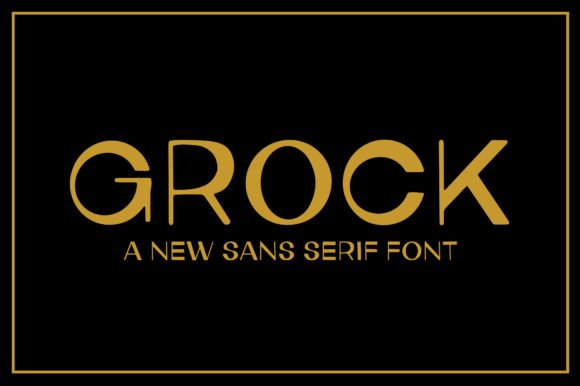
Introducing the Perfect Canvas for Your Creativity: Grock Font
Do you remember that moment when a spark of creativity strikes, and you know exactly what you want to create? The idea is there, but the right tools are what bring it to life. For designers, typography plays a crucial role in elevating their work. A well-chosen font can make all the difference between a good design and a great one.
Enter Grock Font, a modern display font designed with care and attention to detail. With its nicely curved characters and sleek style, this typeface is perfect for any creative project. Whether you’re designing a logo, a brochure, or a website, Grock Font is sure to add a touch of elegance and sophistication.
What sets Grock Font apart is its versatility. It’s a valuable tool for designers who want to create stunning visuals without compromising on style. With Grock Font, you can trust that your designs will be both visually appealing and effective in communicating your message.
Grock Font Key Features
- Character Set: This font features a unique set of characters, including a wide range of symbols and glyphs, making it ideal for creative projects.
- Unique Characteristics: The font’s distinctive design and quirky feel make it perfect for adding a touch of personality to your designs.
- Font Style: Grock Font is a sans-serif font, offering a clean and modern look that’s perfect for a wide range of applications.
Grock Font Review
Overall, I was really excited to dive into Grock Font, a fun and quirky sans-serif font designed to add some whimsy to your designs. ✨ The first thing I noticed was the wide range of character sets and glyphs available, making it perfect for creating custom icons and graphics. ✨ The font’s versatility shines through in its various weights and styles, allowing designers to mix and match to achieve the perfect look.
One of the things I appreciate most about Grock Font is its high level of customization. ✨ You can adjust the font’s spacing, line height, and even individual characters to create a truly unique visual identity. ✨ Additionally, the font’s playful feel makes it perfect for branding and marketing materials, such as logos, business cards, and social media graphics.
Limits and Challenges
While Grock Font is an excellent addition to any designer’s toolkit, there are a few limitations to be aware of. ⚠️ One of the main drawbacks is the font’s somewhat inconsistent spacing, which can make it difficult to achieve perfect alignment in certain layouts. ⚠️ Additionally, the font’s larger file size can slow down loading times in some cases.
- May require adjustments to spacing and alignment in certain layouts
Grock Font is a unique and playful addition to any designer’s toolkit. While it may have some limitations, its high level of customization and versatility make it well worth exploring. With a little patience and practice, you can unlock the full potential of this quirky font and create truly eye-catching designs.
The Grock Font is particularly well-suited for:
- Designing playful and whimsical graphics
- Creating eye-catching headlines and titles